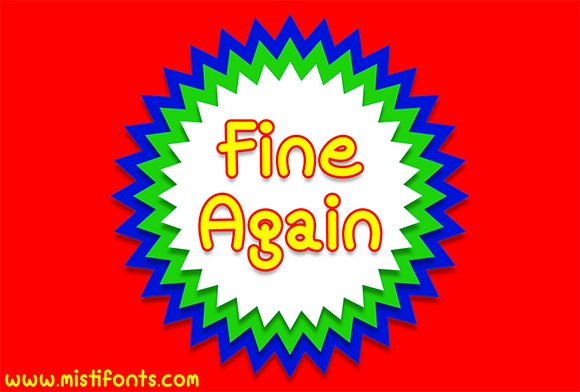
HomeScript FontsFine Again Font Script Fonts Fine Again Font FacebookXPinterestWhatsApp About Fine Again Font Fine Again is a super fun comic style font that is perfect for your design and craft projects! DOWNLOAD ON CREATIVE FABRICAThis font is sold and delivered by Creative Fabrica. Font Canyon may earn a commission if you buy through this link. People also explored Elite Resort JNL Font Letter Font Farmhouse Market Font Moonclaw Starplume Font Teloraster Font Daisy Smile Font Cutesy Mine Font Stagore Font Yulanda Font 278 0 TagsFine Again Font Previous articleKilling Loneliness FontNext articleStill Kinda Ridiculous Font LEAVE A REPLY Cancel reply Comment: Please enter your comment! Name:* Please enter your name here Email:* You have entered an incorrect email address! Please enter your email address here Website: Save my name, email, and website in this browser for the next time I comment. Personal Use Free Sweet Someday Personal Use Free Read more about this font Whoa Personal Use Free Read more about this font Neuropol Personal Use Free Read more about this font Bigstone Personal Use Free Read more about this font BLOG Top 10 Handwritten Fonts That Elevate Your Designs Top 10 Handwritten Fonts That Will Elevate Your Designs Handwritten fonts bring a warm, personal touch to every creative project. Whether you're designing logos, invitations,... Elegant Wedding Invitation Fonts – Handwritten & Script Fonts Free vs Paid Fonts: Why Investing in Premium Fonts Is Worth It The 10 Best Handwriting Fonts to Add Personality to Your Designs